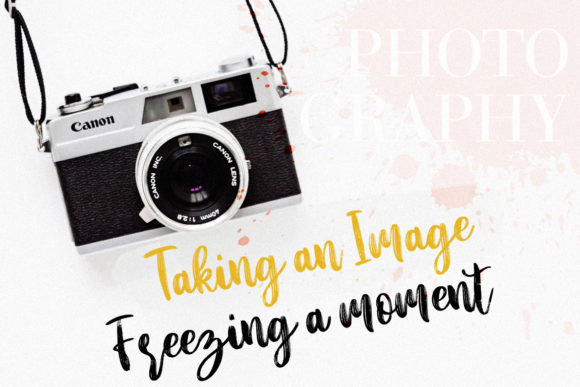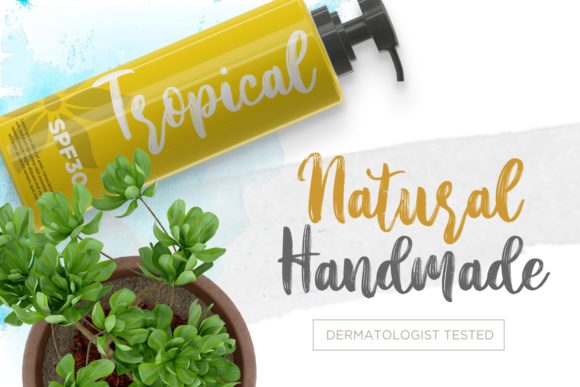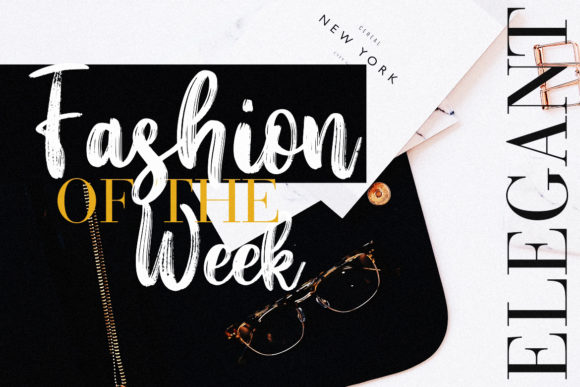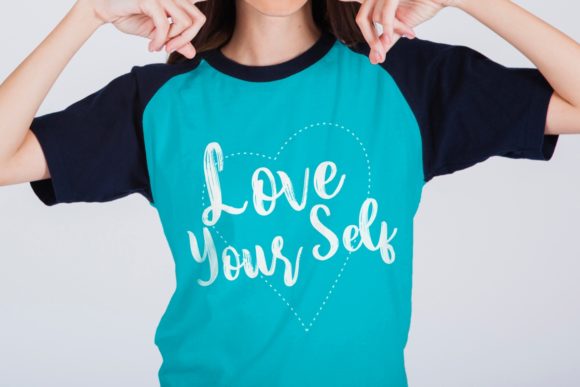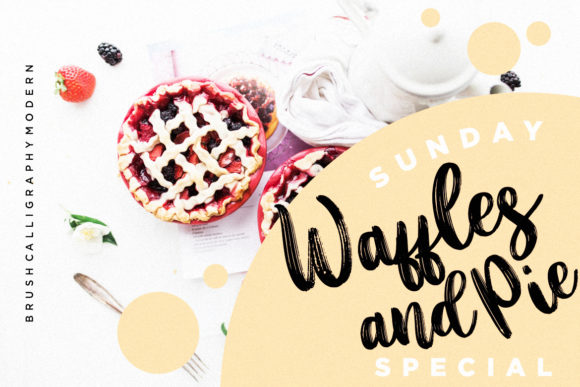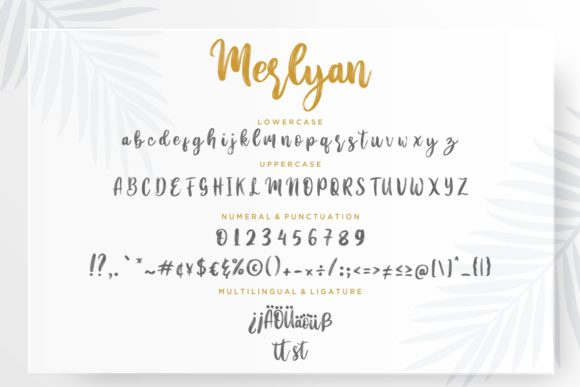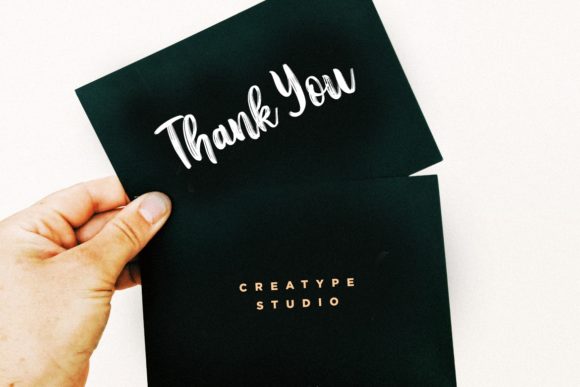
HomeScript FontsMerlyan Font Script Fonts Merlyan Font FacebookXPinterestWhatsApp Merlyan Font Poster 2 Merlyan Font Poster 3 Merlyan Font Poster 4 Merlyan Font Poster 5 Merlyan Font Poster 6 Merlyan Font Poster 7 Merlyan Font Poster 8 About Merlyan Font Merlyan is a hand-brushed calligraphy font with elegant appearance. Fall in love with its playful appearance! DOWNLOAD NOW People also explored Nextart Bold Font Ourselves Font Highlove Font Green Palm Font Homeless Font Sonne Font Rifanca Font Noguf Font Anything Font 318 0 TagsMerlyan Font Previous articleBeautiful Moment FontNext articleSweetie Bunny Font LEAVE A REPLY Cancel reply Comment: Please enter your comment! Name:* Please enter your name here Email:* You have entered an incorrect email address! Please enter your email address here Website: Save my name, email, and website in this browser for the next time I comment. Personal Use Free Equestrain Personal Use Free Read more about this font Rosebirth Personal Use Free Read more about this font Dacquoise Personal Use Free Read more about this font Imelda Personal Use Free Read more about this font BLOG Exploring Font Trends Shaping Communication in the Digital Era Fonts, like all design elements, are subject to trends. They play a crucial role in communicating a brand's personality,... Top 10 Handwritten Fonts That Elevate Your Designs The 10 Best Handwriting Fonts to Add Personality to Your Designs How to Cut Any Font on Cricut: Convert a Font to SVG (Free)